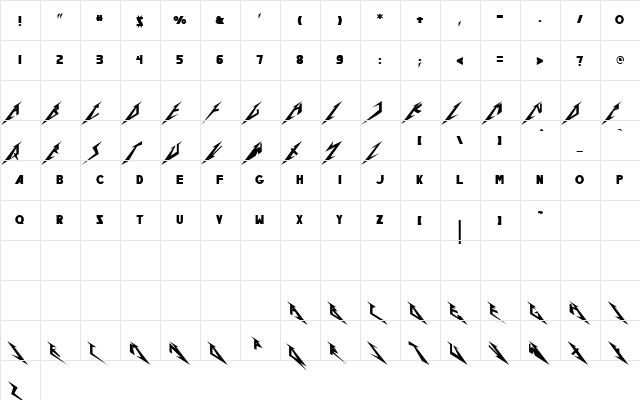
Pastor of Muppets Regular
Design Context for Pastor of Muppets Typeface
Pastor of Muppets is a composed and adaptable typeface that performs quietly and consistently across a wide range of design contexts.